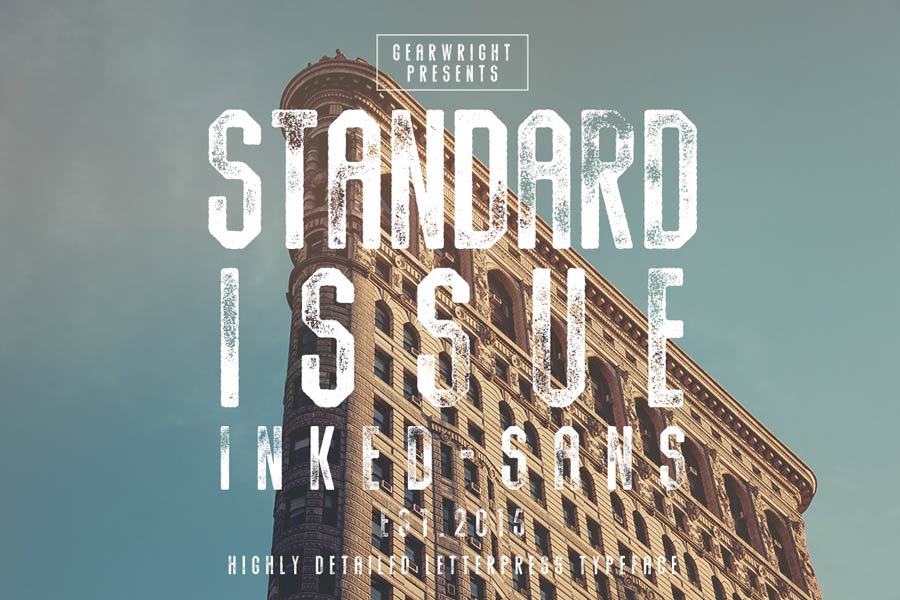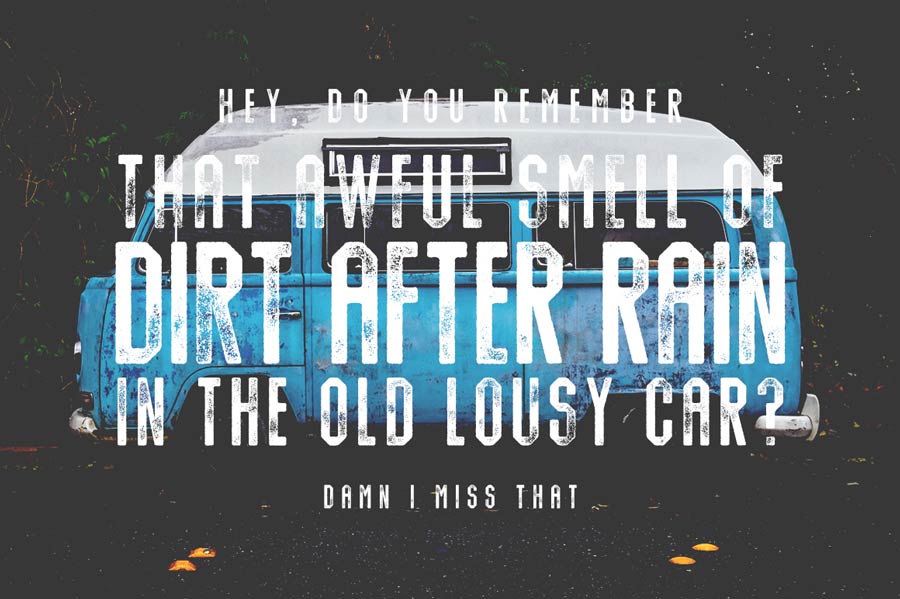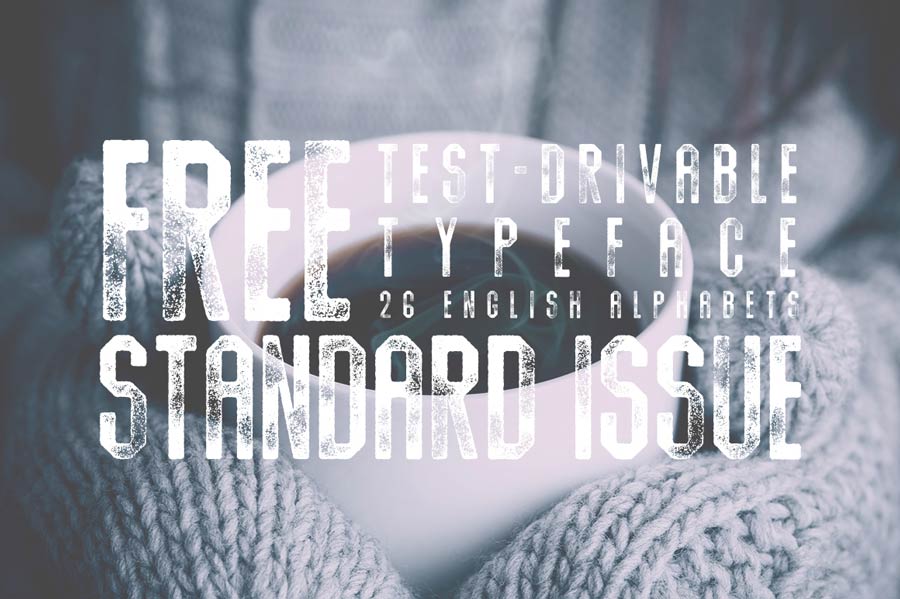
Standard Issue typeface is a hexagonal sans designed to mimic old inky printing works. The full version comes with 3 weights in 6 different type of texture, and you can download the demo version for free for non-commercial projects.